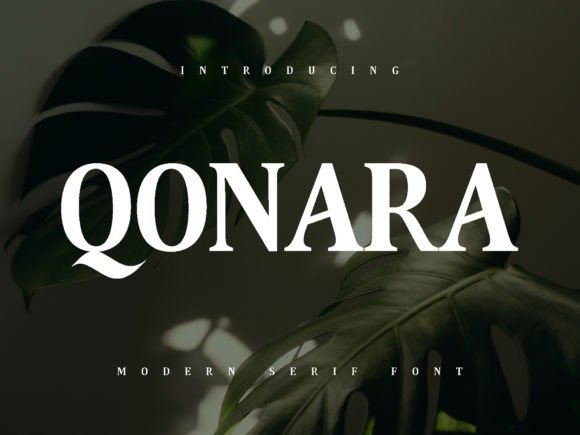
Introducing Qonara, the ultimate serif font that will take your designs to new heights! Crafted by the talented team at artnivora.std, this font is the perfect choice for anyone seeking the best fonts for the letter P. With its captivating simplicity and modern aesthetic, Qonara is guaranteed to elevate your projects and leave a lasting impression.
Are you tired of scrolling through countless fonts, searching for the perfect one? Look no further! Qonara offers everything you need in one package. From elegant logos to stunning magazine layouts, captivating social media posts to eye-catching brochures, this font has got you covered. Its versatility knows no bounds!
Qonara brings a touch of sophistication to every word with its clean and stylish design. The uppercase letters exude confidence and elegance, while the lowercase letters add a sense of modernity. Punctuation marks are carefully crafted to ensure seamless flow and readability, and numerals are clear and distinct.
Now, let's talk about the emotions that Qonara evokes. Imagine the feeling of pride when you unveil a stunning logo that perfectly represents your brand. Picture the joy of flipping through a magazine and seeing your articles come to life with the help of this remarkable font. Envision the excitement of sharing a beautifully designed social media post that captures the attention and admiration of your followers. Qonara makes all of this possible and more.
With Qonara, your designs will stand out from the crowd, leaving a lasting impression on your audience. This font is not just a tool; it's a catalyst for creativity and success. So, why settle for ordinary when you can have extraordinary? Take your projects to new heights with Qonara and unlock a world of endless possibilities.